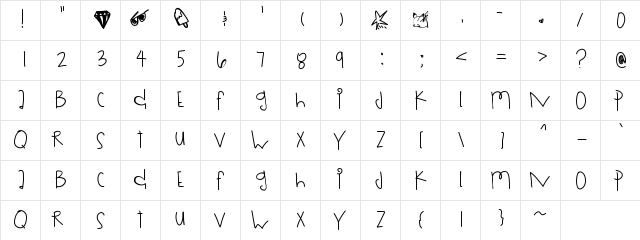
RollingDices Medium
Design Context for RollingDices Typeface
RollingDices is a composed and adaptable typeface that performs quietly and consistently across a wide range of design contexts.